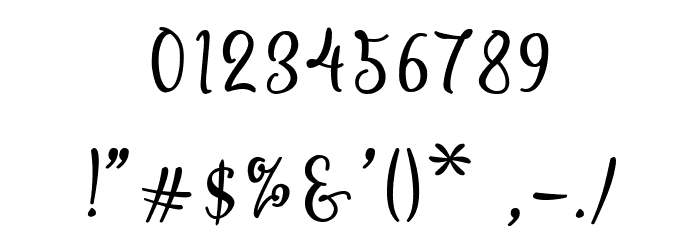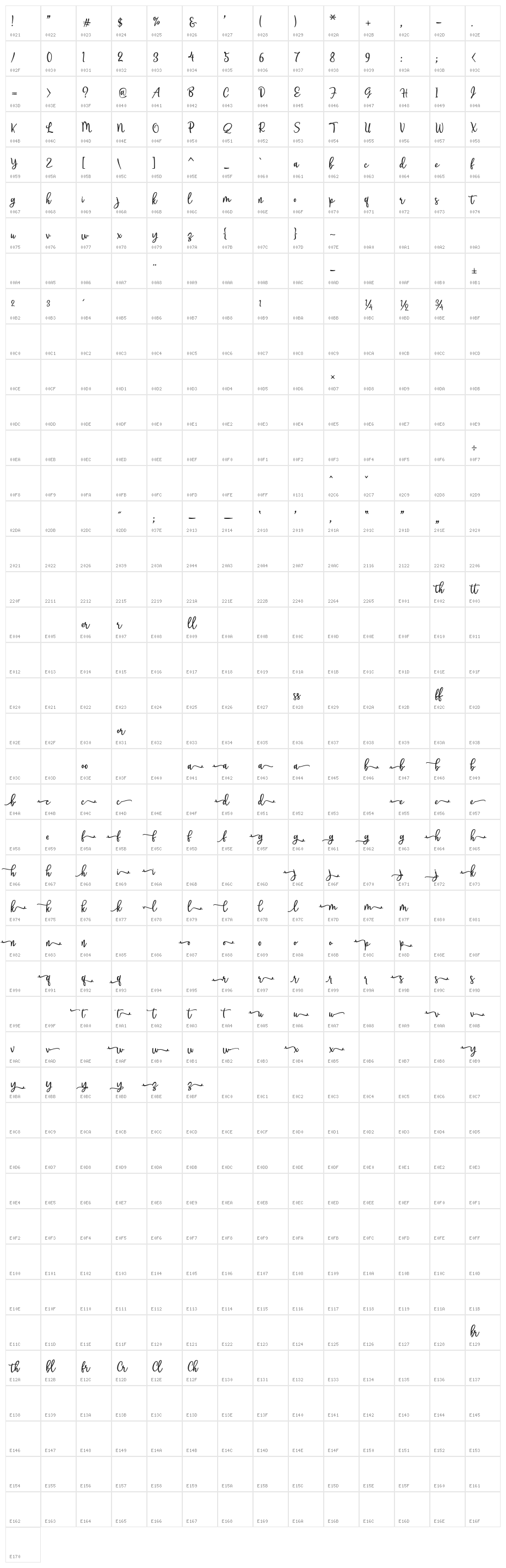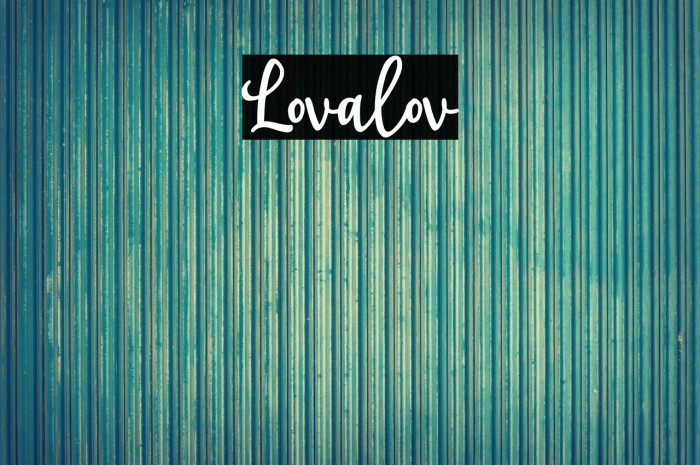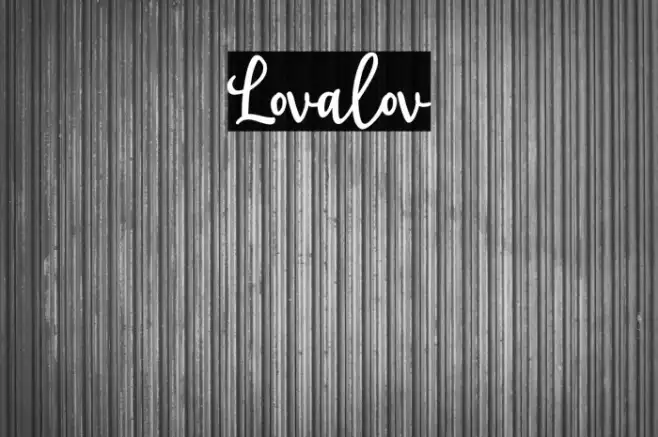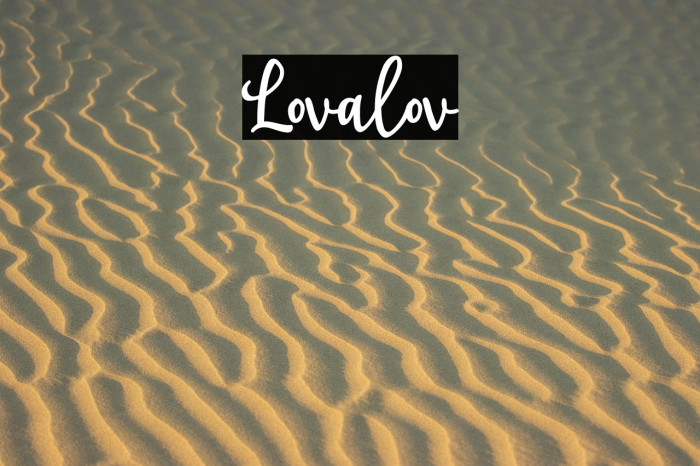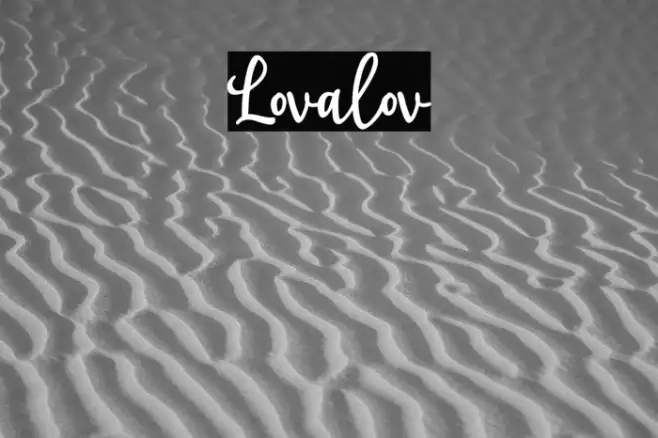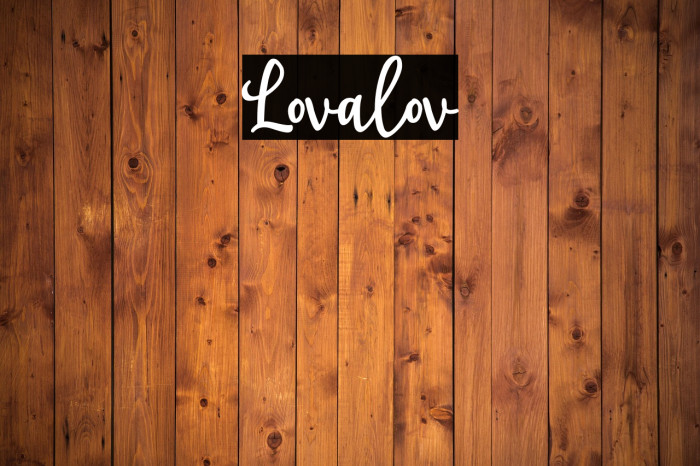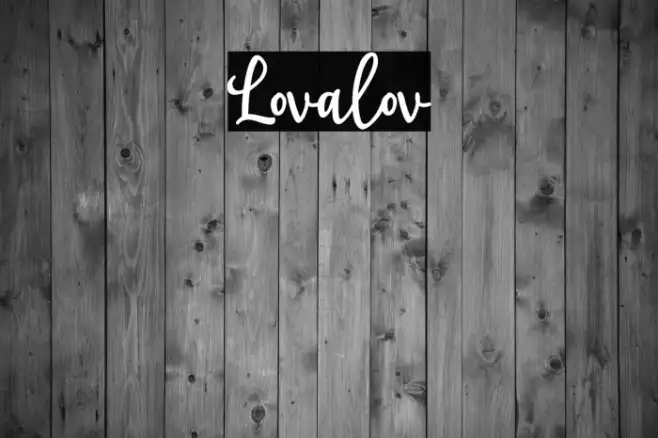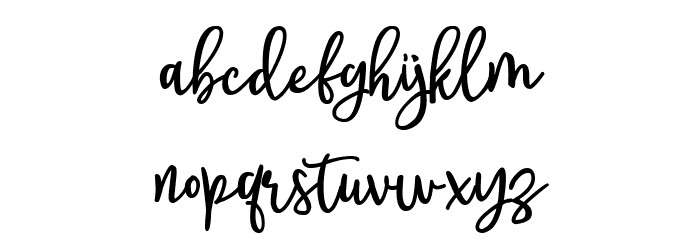
Lovalov Font
Lovalov Description
This font features a flowing, cursive style with elegant curves and a handwritten aesthetic. The uppercase letters are bold and slightly slanted, giving a dynamic feel, while the lowercase letters maintain a consistent flow with smooth connections. The numerals are clear and maintain the cursive theme, adding a touch of sophistication. Special characters are well-integrated, maintaining the overall fluidity and style. This font exudes a sense of elegance and personal touch, making it ideal for projects that require a personal or artistic flair.
Overall StyleElegant, Artistic
Use CaseLogos, Invitations, Artistic projects
Proposed ProjectsIdeal for wedding invitations, greeting cards, personal branding, and artistic projects.